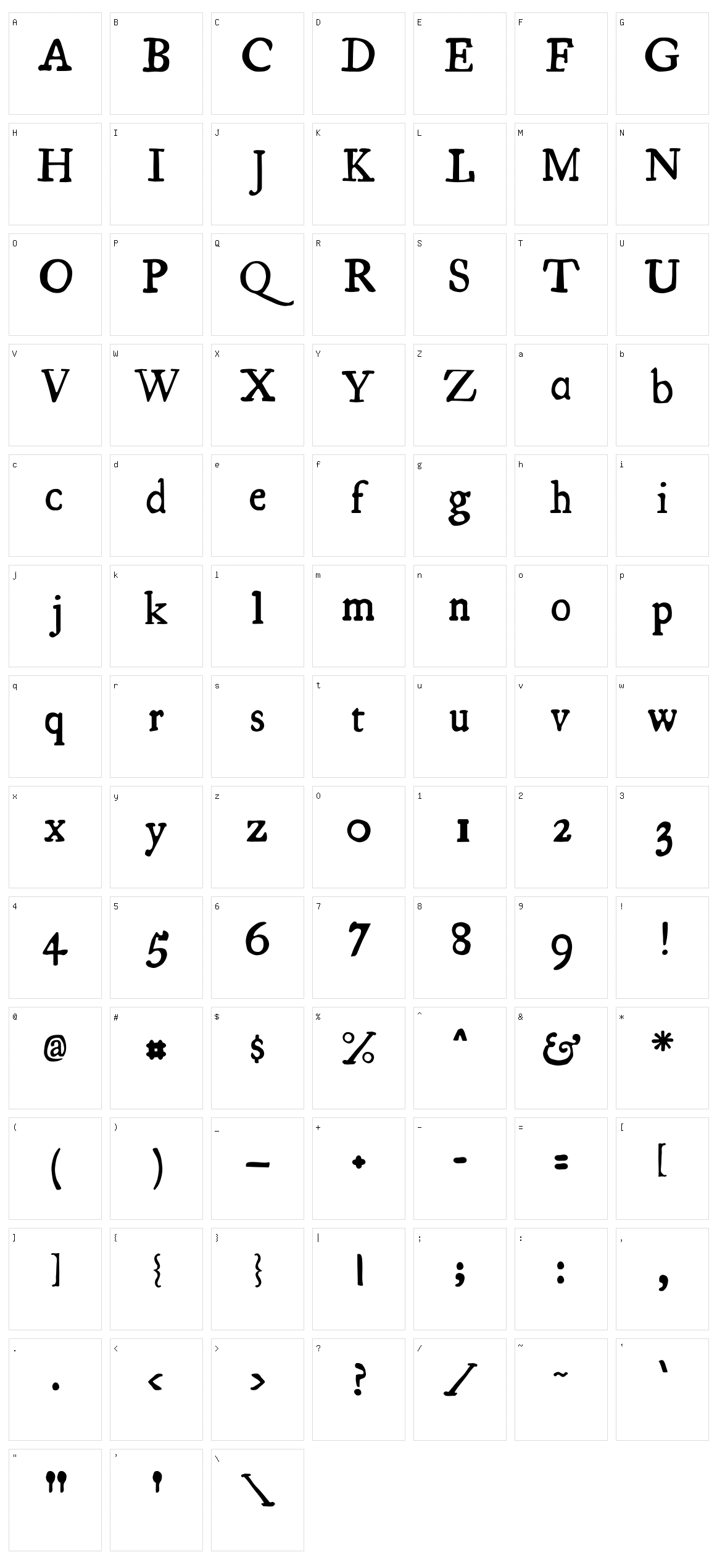
The free font LPEducational is carefully designed by Marshmallow Creative, showcasing a thoughtful balance of creativity and usability and falls under the Eroded font style. When you download the ZIP file, it contains only 58.32 KB of font files, making it lightweight and quick to download. Please review the license details below to understand permitted usage and distribution rights. If license information is not available, we recommend using this font for personal projects only or contacting the author directly for commercial usage permissions.